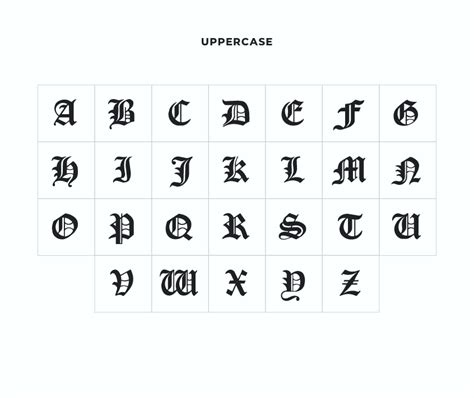
Chrome Hearts Font Generator. Web heart font generator tool will let you convert simple and normal font style into your desired font. You can edit it to create your own fonts by clicking the edit button below.